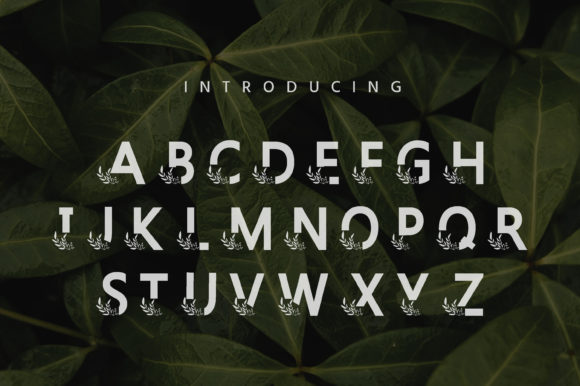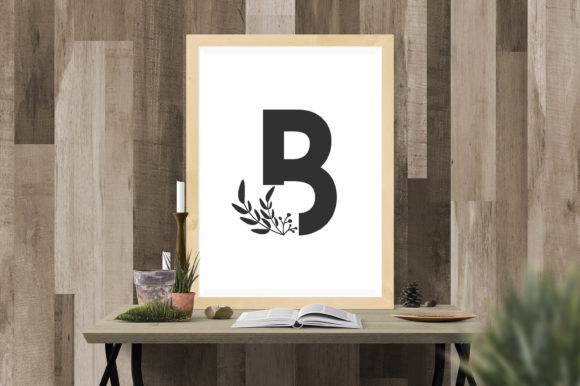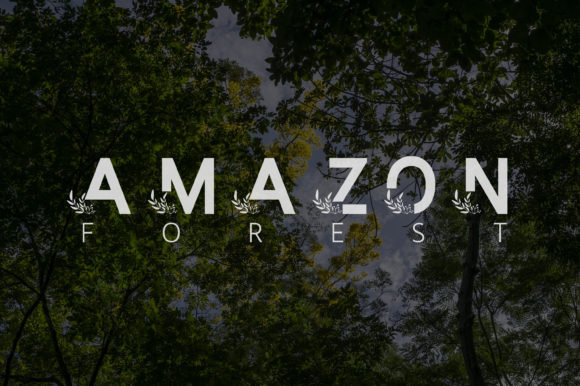
Bherleaf Font: Elevate Your Designs with a Bold yet Delicate Touch
In the world of typography, fonts play a crucial role in conveying the tone and personality of a design. For designers and crafters looking to add a touch of elegance and whimsy to their projects, the Bherleaf Font is an excellent choice. This beautiful decorative font is not only visually stunning but also highly versatile, making it perfect for a wide range of applications.
What is Bherleaf Font?
Bherleaf is a bold yet lovely and delicate decorative font that has captured the hearts of designers and crafters alike. Its unique blend of boldness and delicacy makes it an ideal choice for those looking to add a touch of sophistication to their designs. Whether you’re working on a branding project, crafting a handmade card, or creating a stunning digital artwork, Bherleaf Font is sure to impress.
One of the standout features of Bherleaf Font is its PUA (Private Use Area) encoding. This means that users can access all of the glyphs and swashes with ease, giving them complete creative control over their designs. With PUA encoding, you can effortlessly navigate through the font’s extensive character set, including alternate letters, ligatures, and decorative swashes.
Key Features of Bherleaf Font
- Bold yet delicate design: Bherleaf Font boasts a unique blend of boldness and delicacy, making it perfect for designs that require a touch of elegance and sophistication.
- Highly versatile: Bherleaf Font is suitable for a wide range of applications, from branding and advertising to crafting and digital art.
Uses for Bherleaf Font
Bherleaf Font is an incredibly versatile font that can be used in a variety of contexts. Here are some ideas to get you started:
- Branding and advertising: Use Bherleaf Font to create eye-catching logos, business cards, and marketing materials that showcase your brand’s personality.
- Crafting and DIY projects: Add a touch of elegance to your handmade cards, scrapbooking pages, and other craft projects with Bherleaf Font.
- Digital art: Use Bherleaf Font to create stunning digital artworks, including posters, flyers, and social media graphics.
- Wedding and event planning: Bherleaf Font is perfect for creating beautiful wedding invitations, place cards, and other event materials.
Tips for Using Bherleaf Font
To get the most out of Bherleaf Font, here are a few tips to keep in mind:
- Experiment with different sizes and colors: Bherleaf Font looks great in a variety of sizes and colors, so don’t be afraid to experiment and find the perfect combination for your design.
- Pair with complementary fonts: Bherleaf Font pairs well with a range of fonts, so try combining it with complementary fonts to create a unique and visually appealing design.
- Use swashes and glyphs to add personality: Take advantage of Bherleaf Font’s extensive character set to add personality and whimsy to your designs.